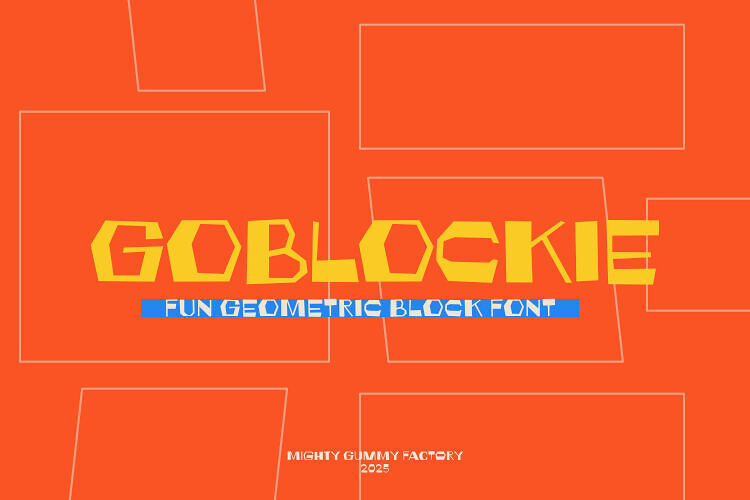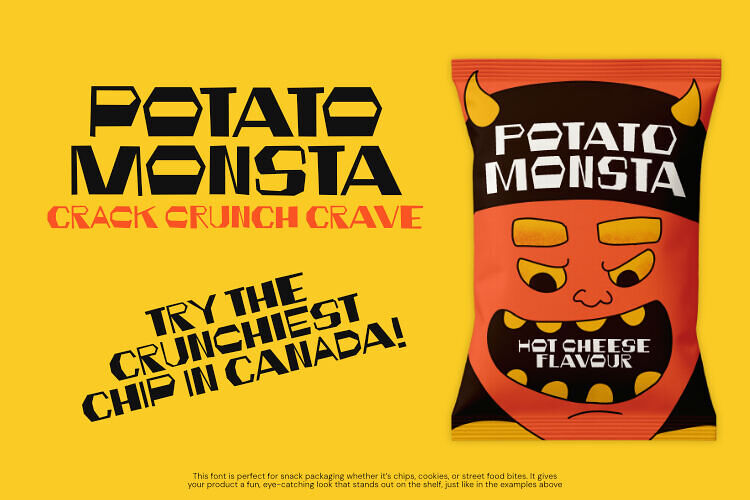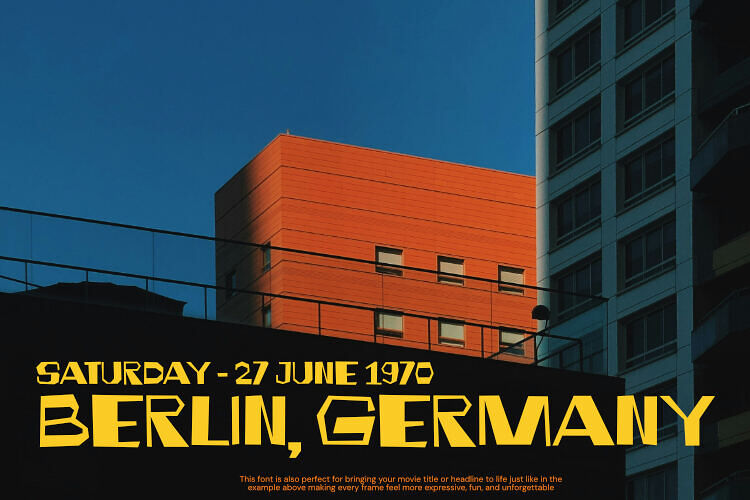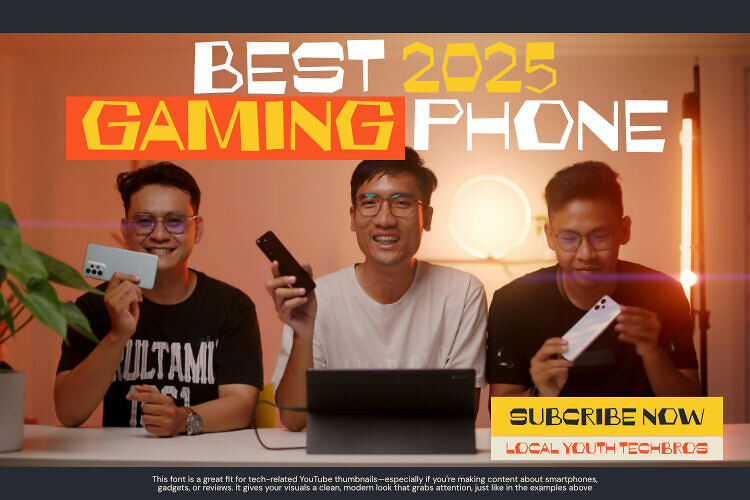
MGF Goblockie Font
GOBLOCKIE is a bold and blocky display font packed with quirky geometric charm. Its fun, irregular letterforms are perfect for playful branding, kids-themed graphics, indie game design, or standout social media posts.
Whether you’re designing for posters, packaging, or digital content, GOBLOCKIE brings energy, character, and standout appeal to every letter you type.